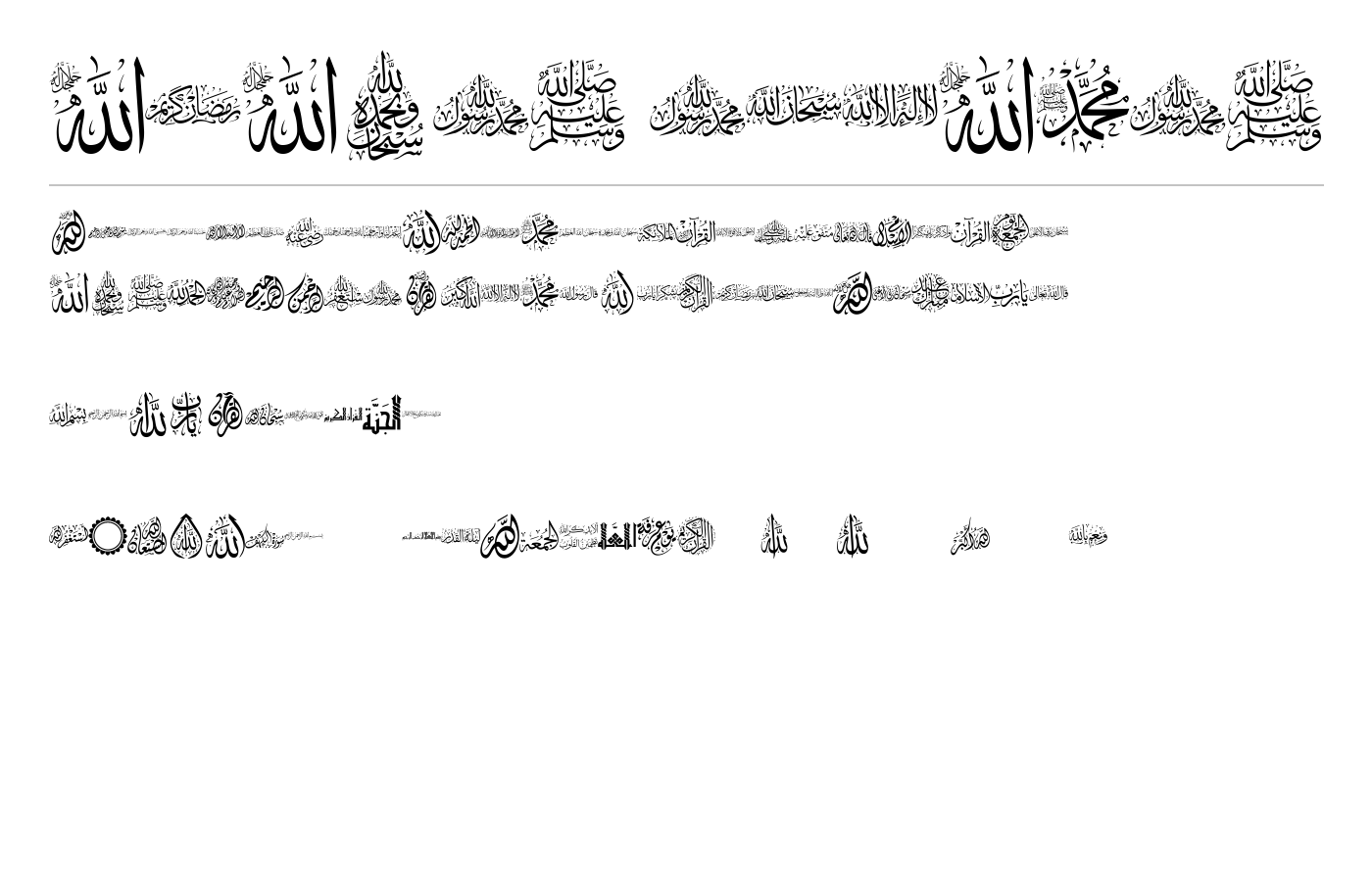
Arabic Islamic Font showcases a beautifully intricate and traditional calligraphic style deeply rooted in Islamic art. Its delicate, flowing strokes and ornamental details create an elegant and spiritual feel, making it ideal for religious texts, cultural designs, and decorative purposes where a sense of reverence and sophistication is desired. This font is best used in contexts that call for a refined, classical touch, such as religious publications, ceremonial branding, and artistic displays.
arabic islamic Font
About arabic islamic Font